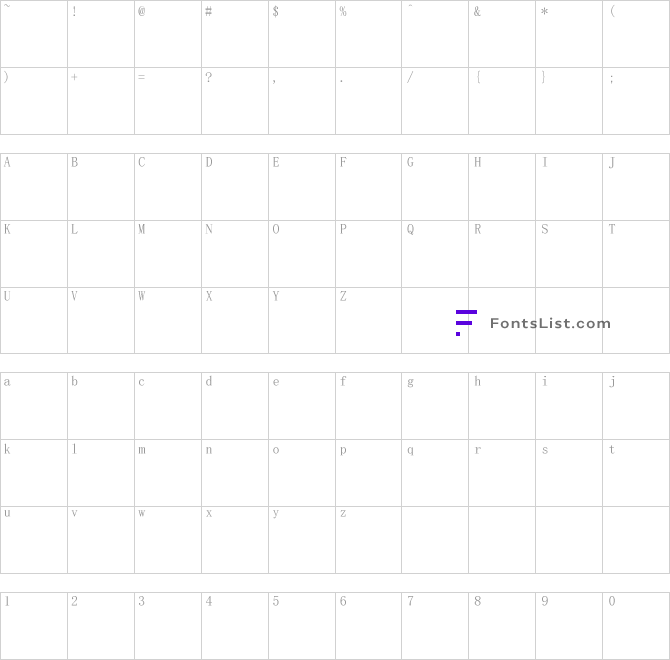
Arphic-Pop-Bold-GB.ttf is a very beautiful artistic font, Arphic-Pop-Bold-GB.ttf is widely used in the design and printing of various books and pictures,Arphic-Pop-Bold-GB.ttf has a strong visual impact,Arphic-Pop-Bold-GB.ttf is a commonly used font in newspapers, magazines and books, and is used in posters, e-commerce Poster design, store design, logo design, font design and other fields.Arphic-Pop-Bold-GB.